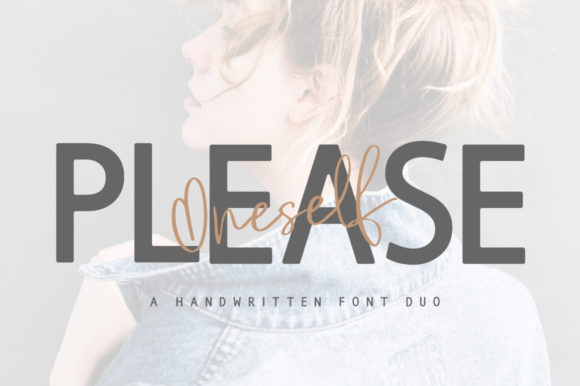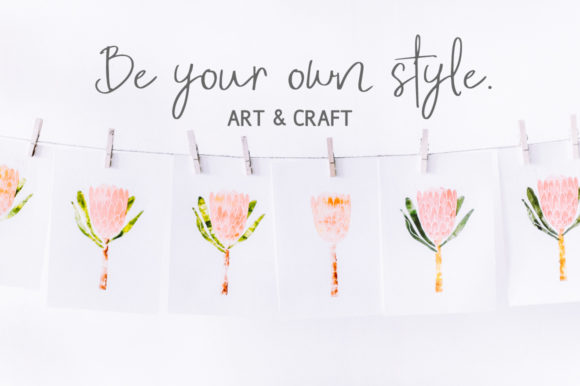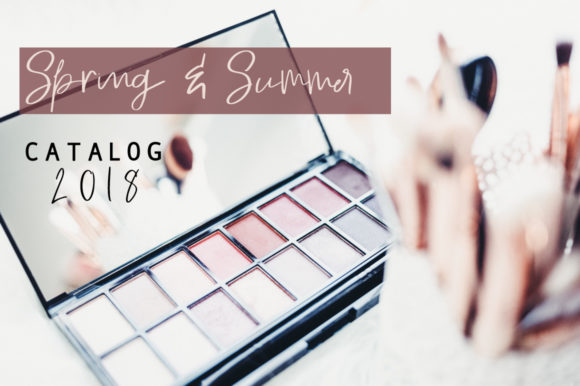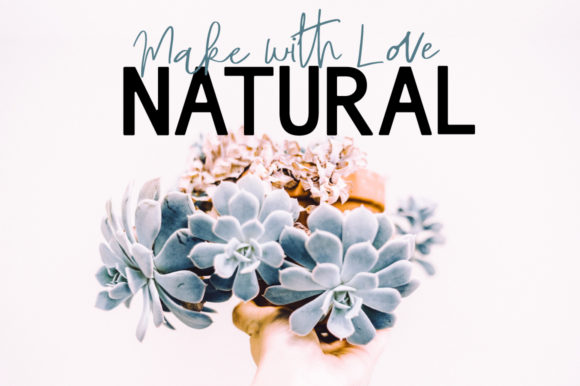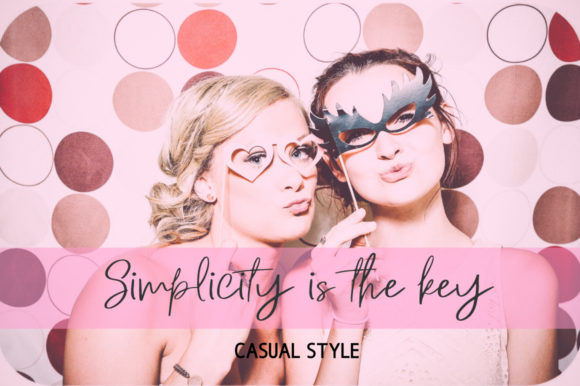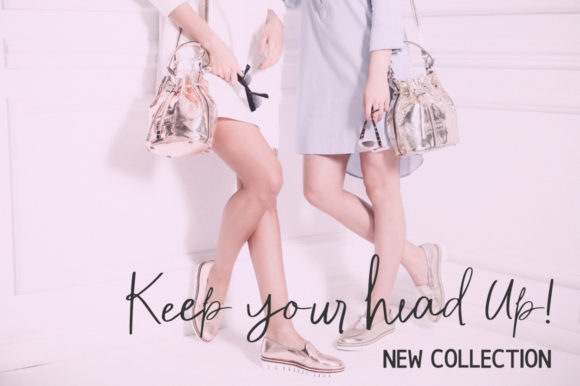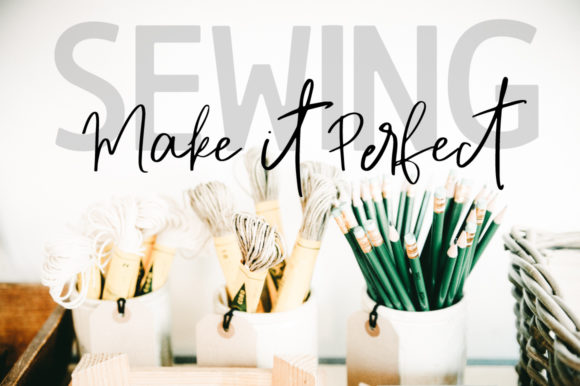
Please Oneself Duo Font
About Please Oneself Duo Font
The Please Oneself is an amazing font duo. It contains a beautiful signature script and a striking sans serif version.
The two included styles can be combined perfectly and will make any design stand out with an unique touch.